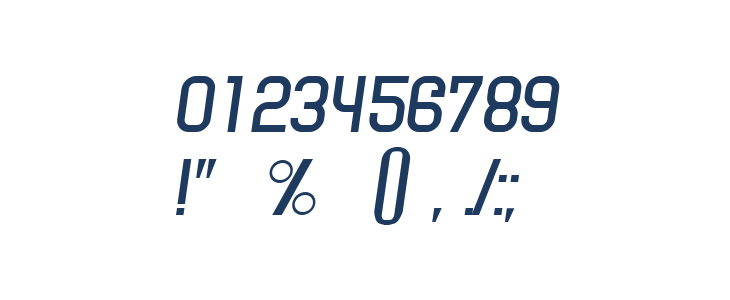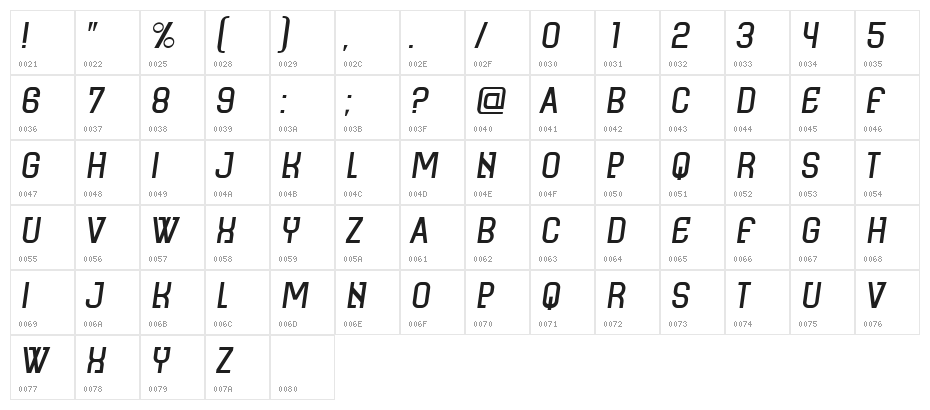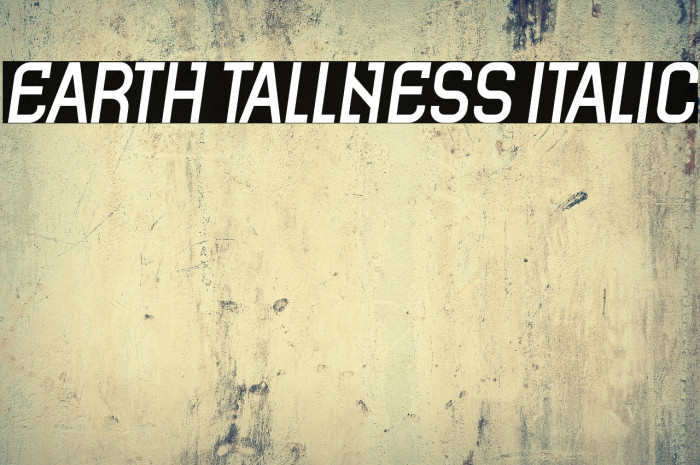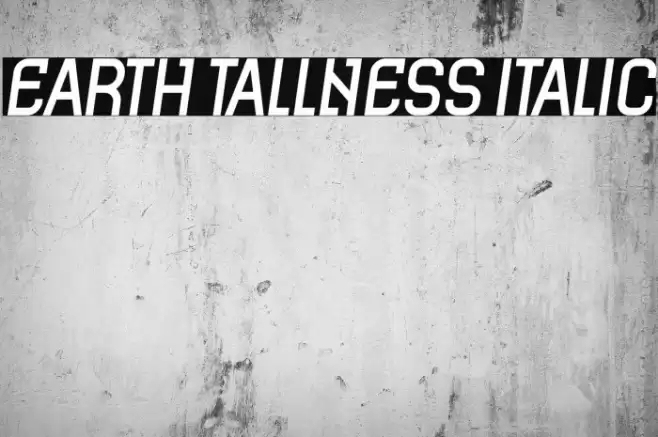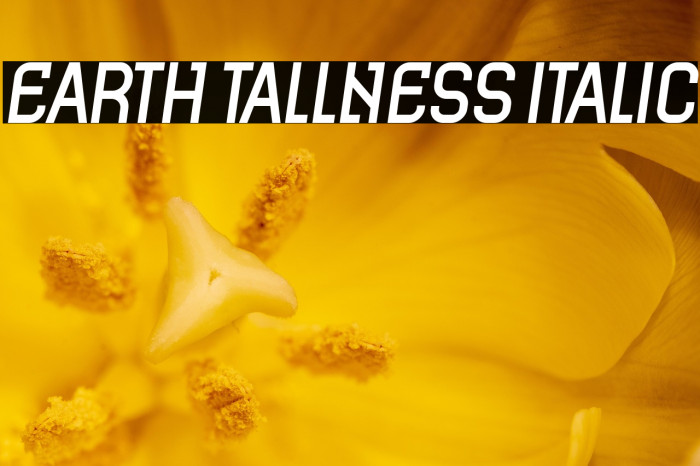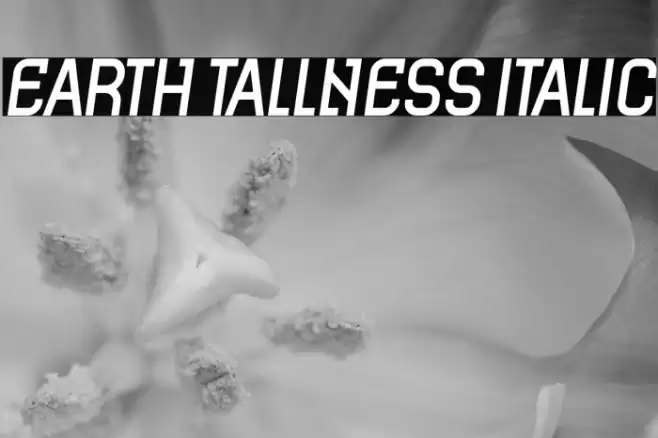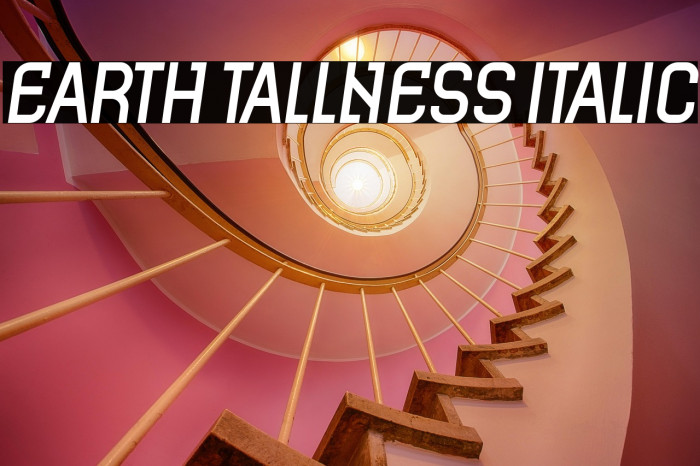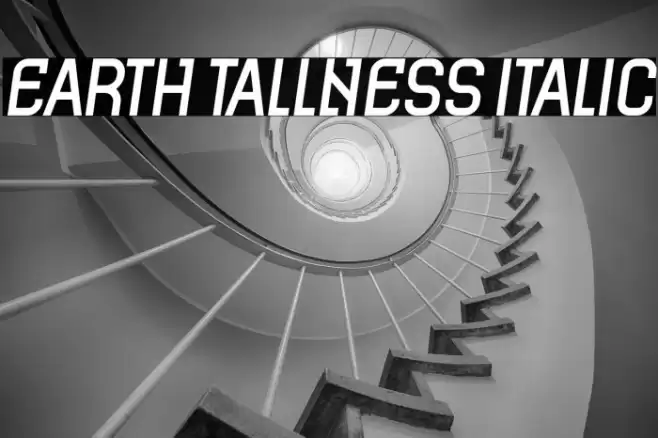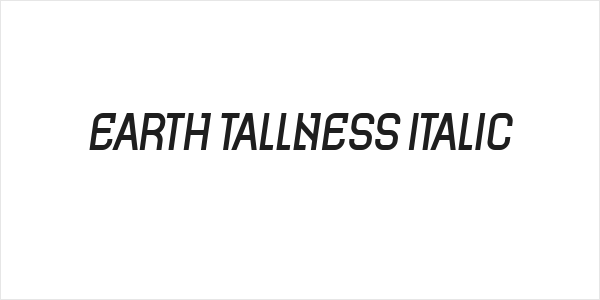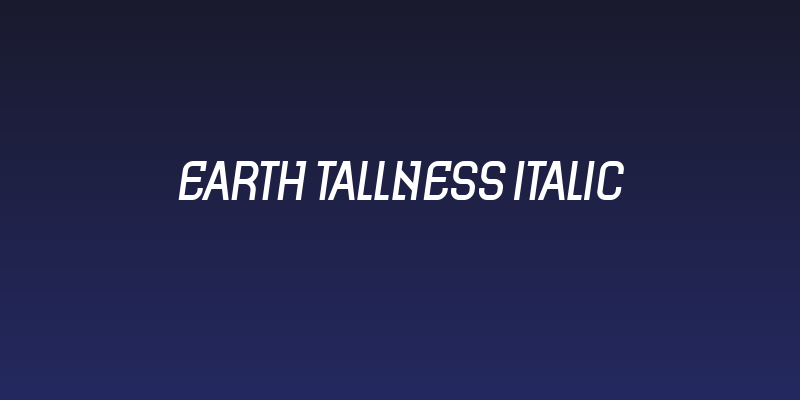
Earth Tallness Italic Font
Earth Tallness Italic Description
This font features a modern and dynamic design with a distinct italic slant, giving it a sense of motion and energy. The characters are tall and narrow, contributing to a sleek and streamlined appearance. The strokes are consistent in weight, providing a uniform look across all characters. The font includes both uppercase and lowercase letters, numerals, and a selection of special characters, making it versatile for various applications. The overall style is contemporary, with a slight futuristic edge, suitable for projects that require a bold and impactful typeface.
| Proposed Projects | Ideal for branding, advertising, sports-related designs, and modern digital interfaces. |